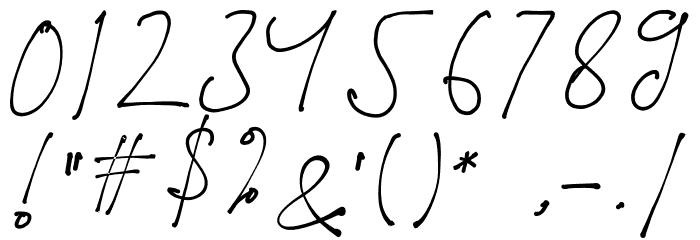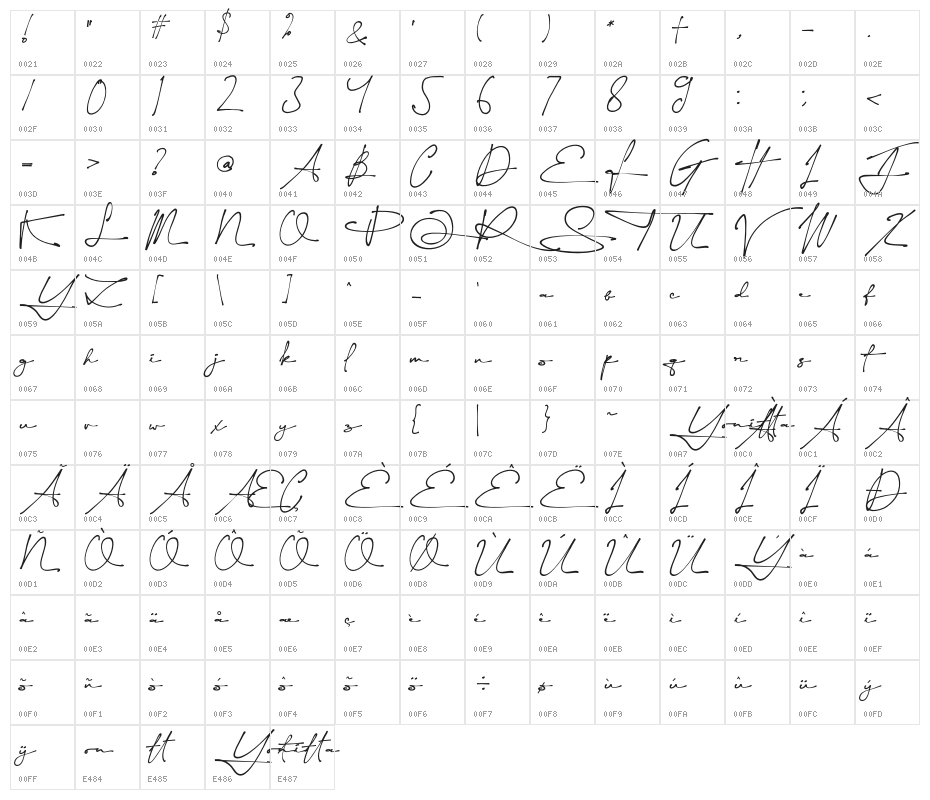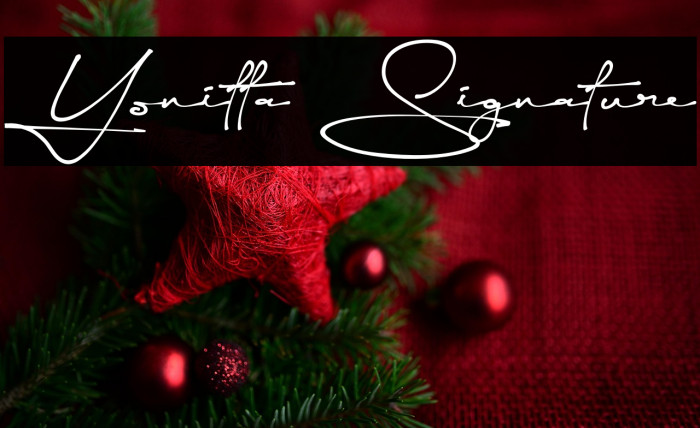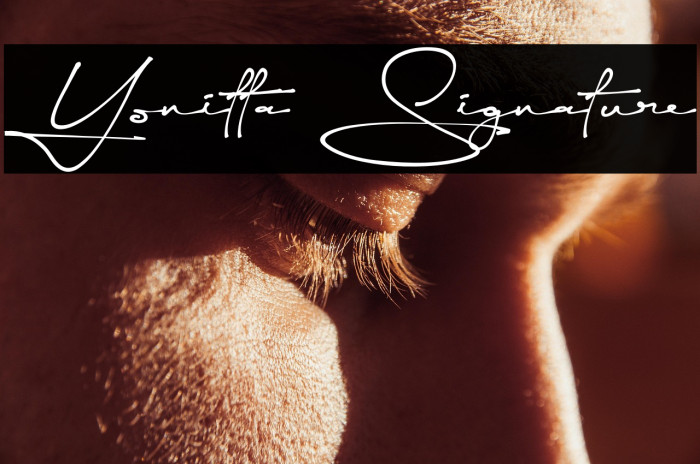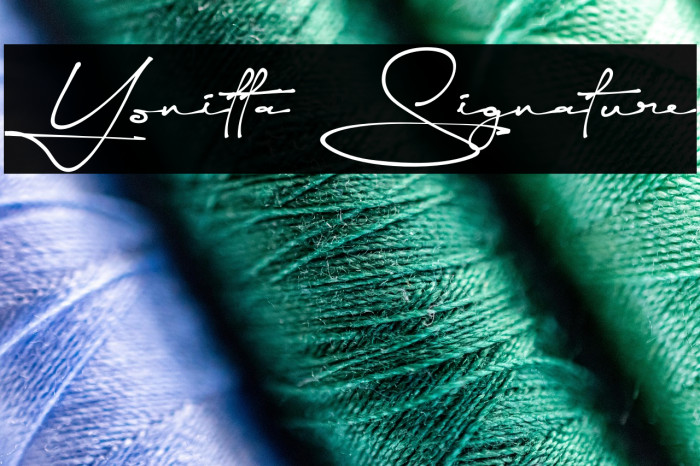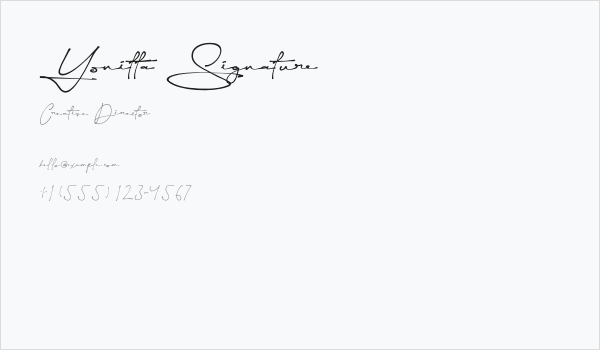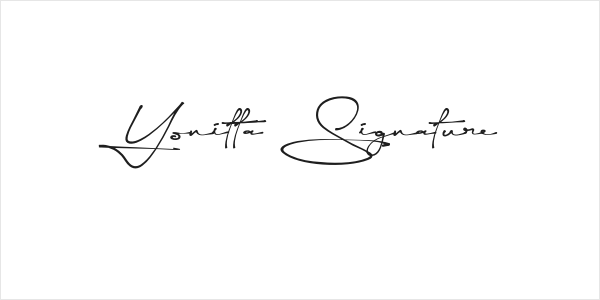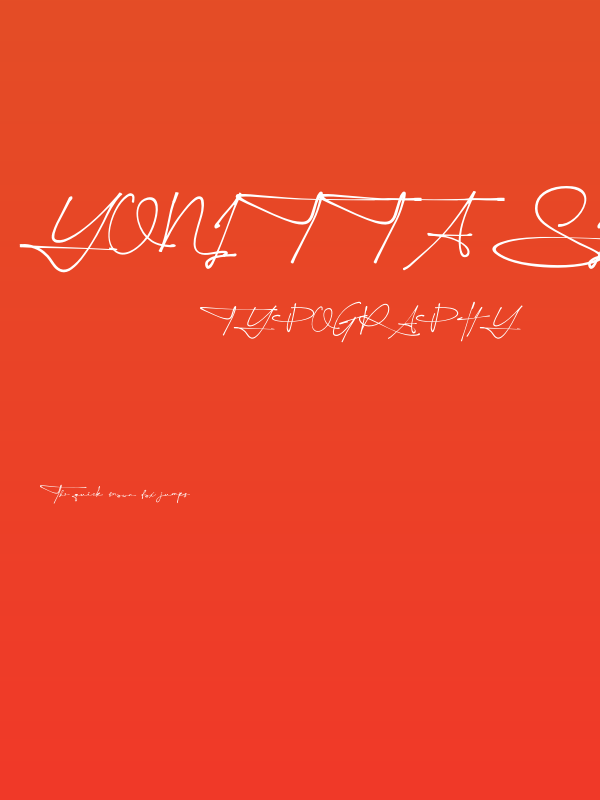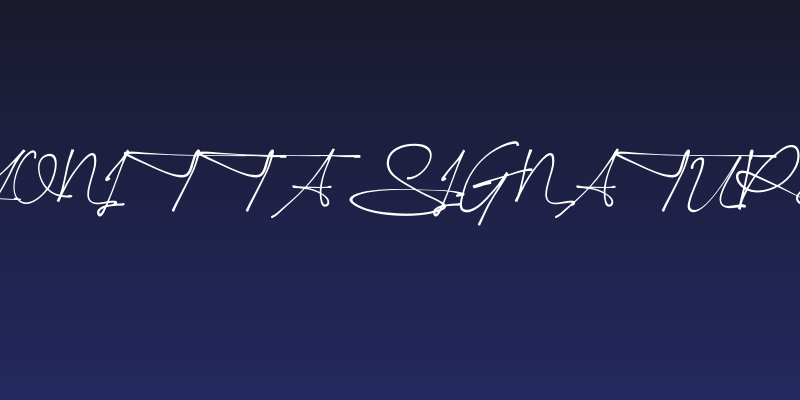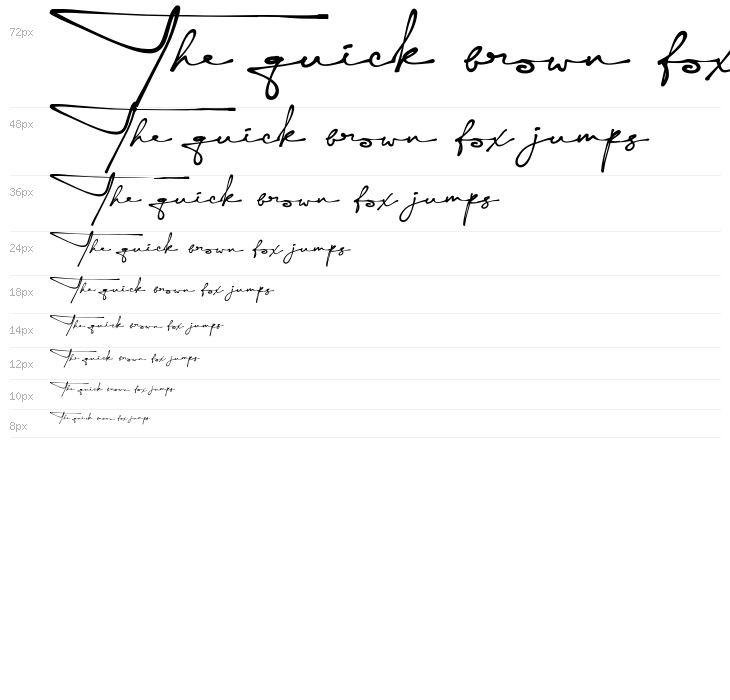
Yonitta Signature Font
Yonitta Signature Description
This font exudes a personal and artistic flair, reminiscent of a handwritten signature. The characters are elegantly elongated with fluid strokes, giving it a sophisticated and stylish appearance. The uppercase letters are particularly expressive, with sweeping lines and loops that add a sense of movement and grace. The lowercase letters maintain a consistent flow, complementing the uppercase with their smooth curves. Numbers and special characters are crafted with the same attention to detail, ensuring a cohesive look across all elements. This font is ideal for projects that require a touch of elegance and individuality.
Use CaseLogos, Signatures, Invitations
Proposed ProjectsIdeal for personal branding, invitations, greeting cards, and artistic projects that require a personal touch.